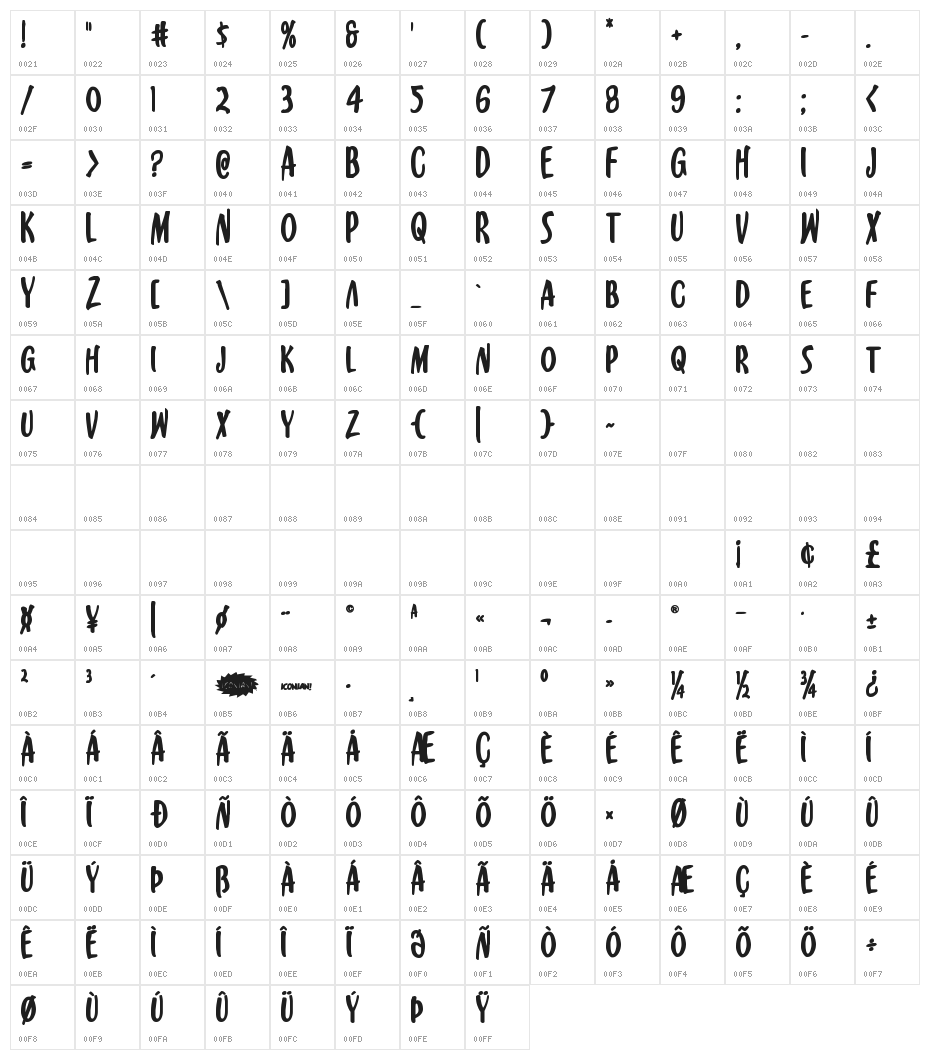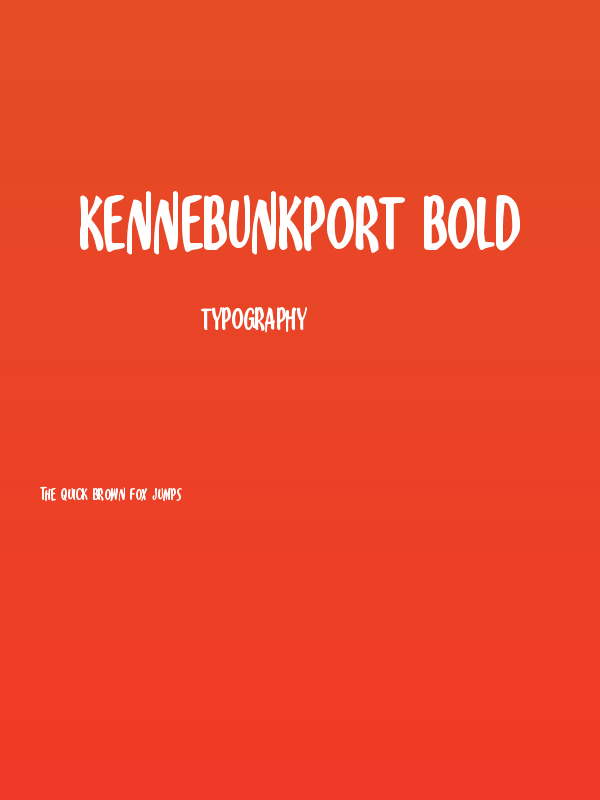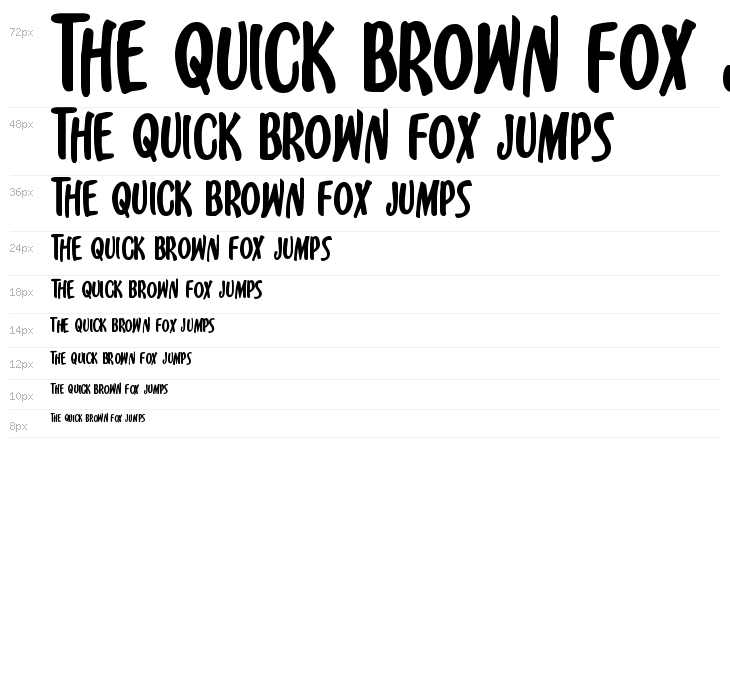
Kennebunkport Bold Font
Kennebunkport Bold Description
This font features a bold and playful style with a hand-drawn appearance. The characters are slightly irregular, adding a whimsical and informal touch. The uppercase and lowercase letters are well-balanced, with a consistent stroke width that gives the font a cohesive look. The numbers and special characters maintain the same playful aesthetic, making it suitable for creative and casual designs. The overall impression is friendly and approachable, ideal for projects that require a touch of personality.
| Proposed Projects | Ideal for children's books, greeting cards, playful branding, and social media graphics. |